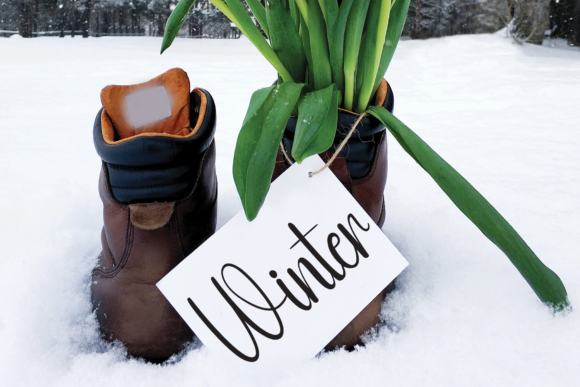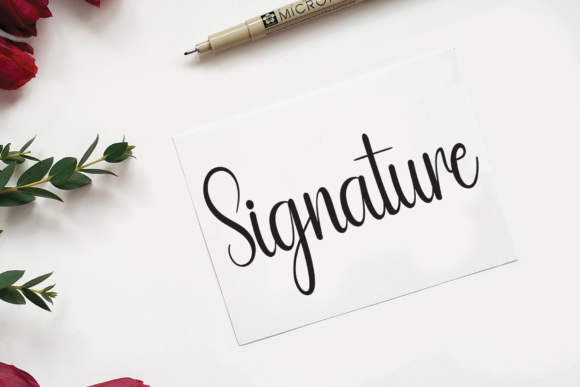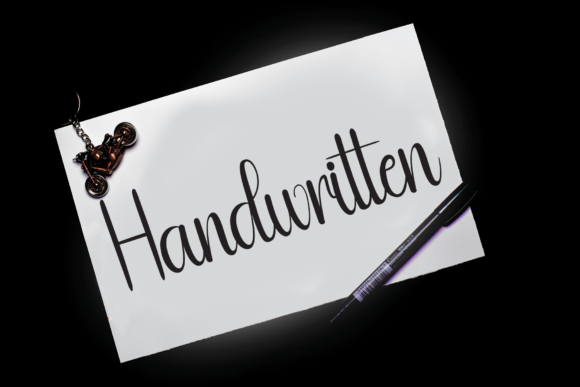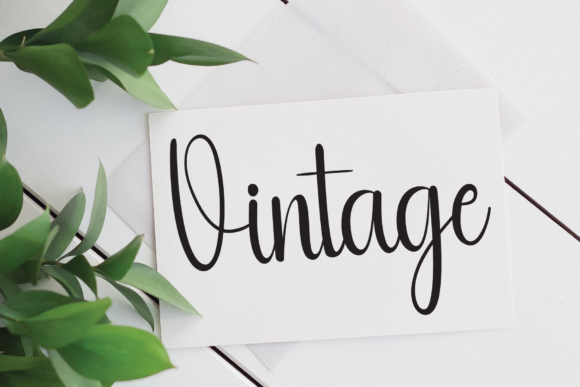
The Sweet Spot of Design: Introducing Jelly Font
You know that feeling when you stumble upon a font that just makes your design come alive? For me, it was a late-night brainstorming session, surrounded by scribbled notes and half-finished projects. I was searching for the perfect script font to give my latest project that extra oomph, and that’s when I found it – a beautiful, whimsical font that captured the essence of romance and playfulness.
Enter Jelly Font, a delightful script font designed to bring a touch of sweetness to your designs. With its beautiful curves and flowing lines, Jelly Font is perfect for creating eye-catching headlines, romantic wedding invitations, or even a quirky logo. What sets Jelly Font apart is its PUA coding, making it easy to access all the glyphs and swashes. This font is a treasure trove for designers, offering endless possibilities for creative expression.
Whether you’re a seasoned designer or just starting out, Jelly Font is a valuable addition to your toolkit. Its versatility and charm make it an ideal choice for a wide range of projects, from editorial designs to social media graphics. So, get ready to fall in love with Jelly Font and take your designs to the next level!
- Unique Characteristic: Jelly Font features a unique, hand-drawn design with a playful, jelly-like appearance, making it ideal for creative and whimsical projects.
Jelly Font Review
Overall, I think the Jelly Font has a lot of potential, but it also has some areas where it falls short. Let’s dive in and see what works well and what doesn’t.
- The Jelly Font has a unique and playful design that can add a lot of character to a project. It’s perfect for creating a fun and whimsical atmosphere.
- The font is highly customizable, with a wide range of styles and sizes available. This makes it easy to adapt to different design needs.
- The Jelly Font is highly legible, even at small sizes, making it a great choice for digital projects.
- The Jelly Font can be quite overwhelming if used excessively. It’s a bold and playful font, and too much of it can be too much.
- The font is not ideal for formal or professional projects. It’s better suited for more casual or creative projects.
- The Jelly Font may not be the best choice for projects where readability is a top priority. While it’s highly legible, it can be difficult to read in certain situations.
Overall, I think the Jelly Font is a great choice for projects where you want to add a bit of personality and whimsy. However, it’s not the best choice for every project, and you should carefully consider the limitations before using it.
To get the most out of Jelly Font, use it for:
- Food and drink branding
- Children’s products and packaging
- Summer-themed designs
For best results, pair Jelly Font with bright, pastel colors and playful graphics.